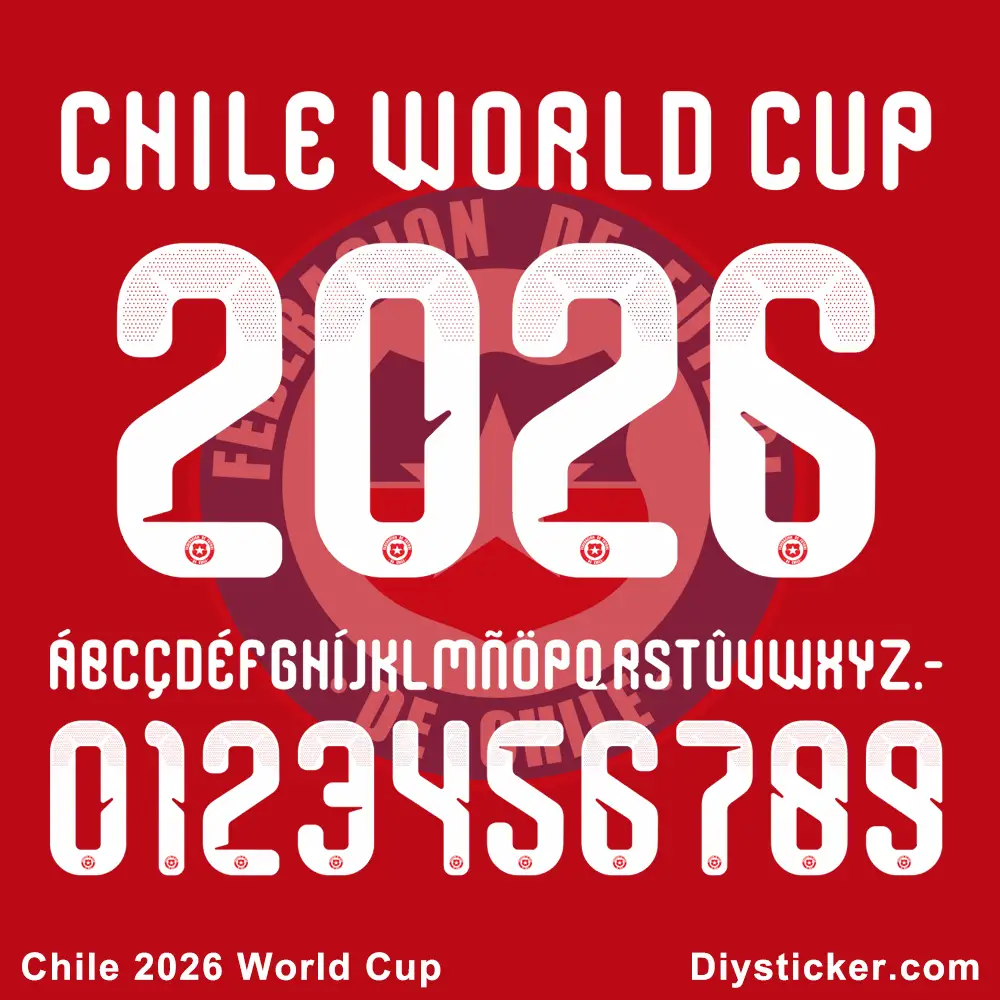
Show your passion for La Roja with the official Chile 2026 World Cup Font. This distinctive typeface, featuring unique characters and stylized elements, is used by the Chilean Football Federation for its official World Cup kits and tournament graphics.